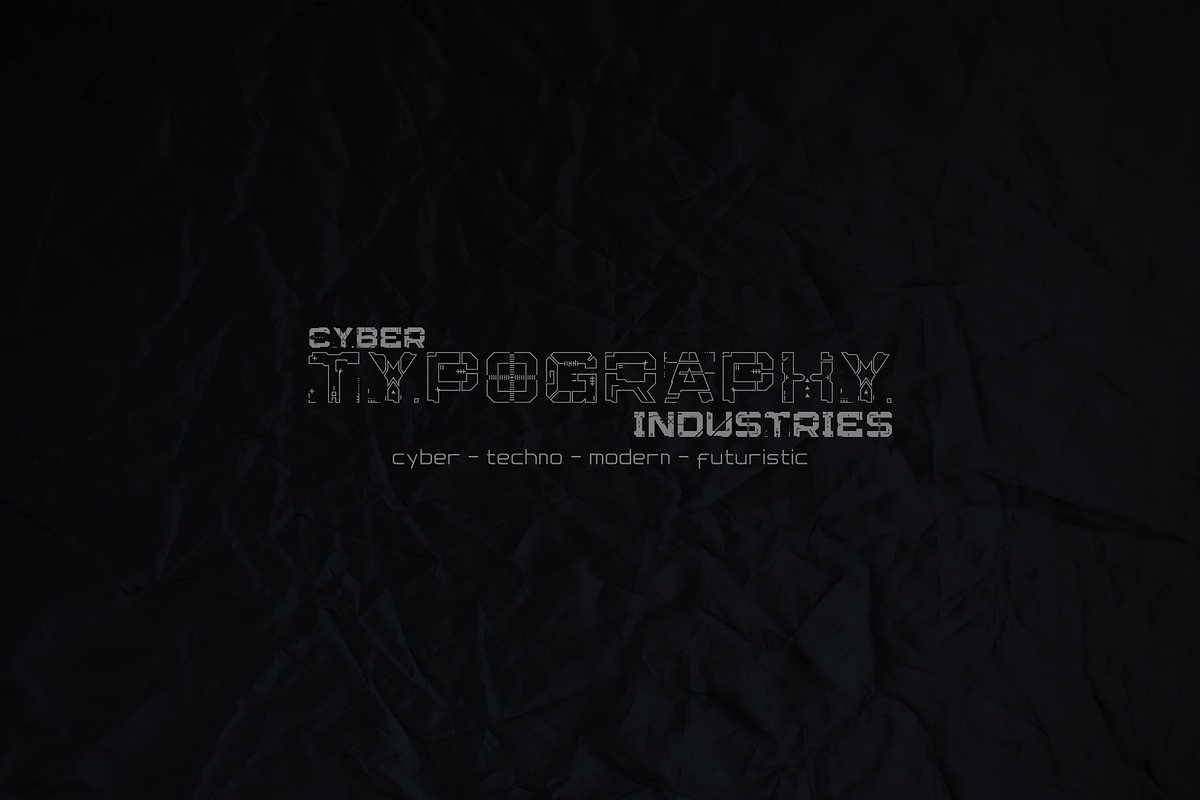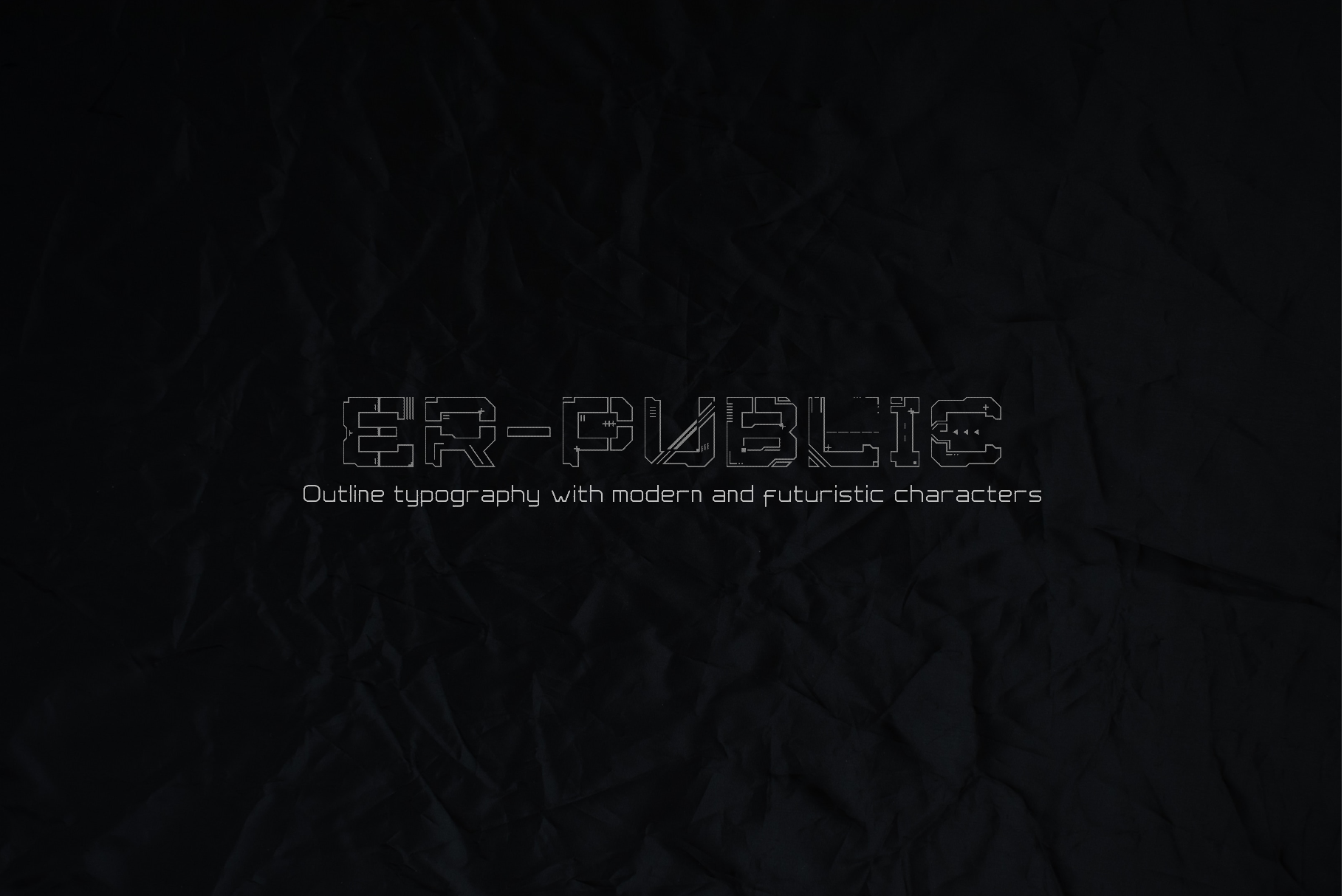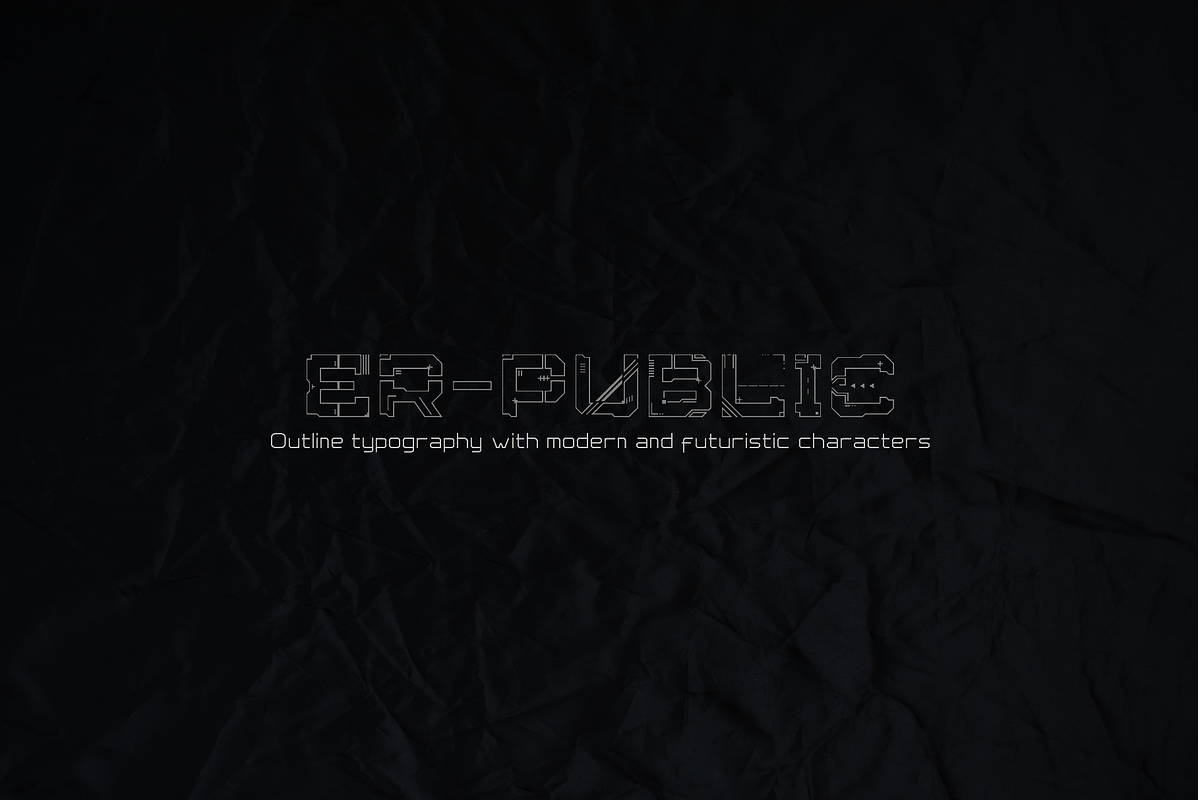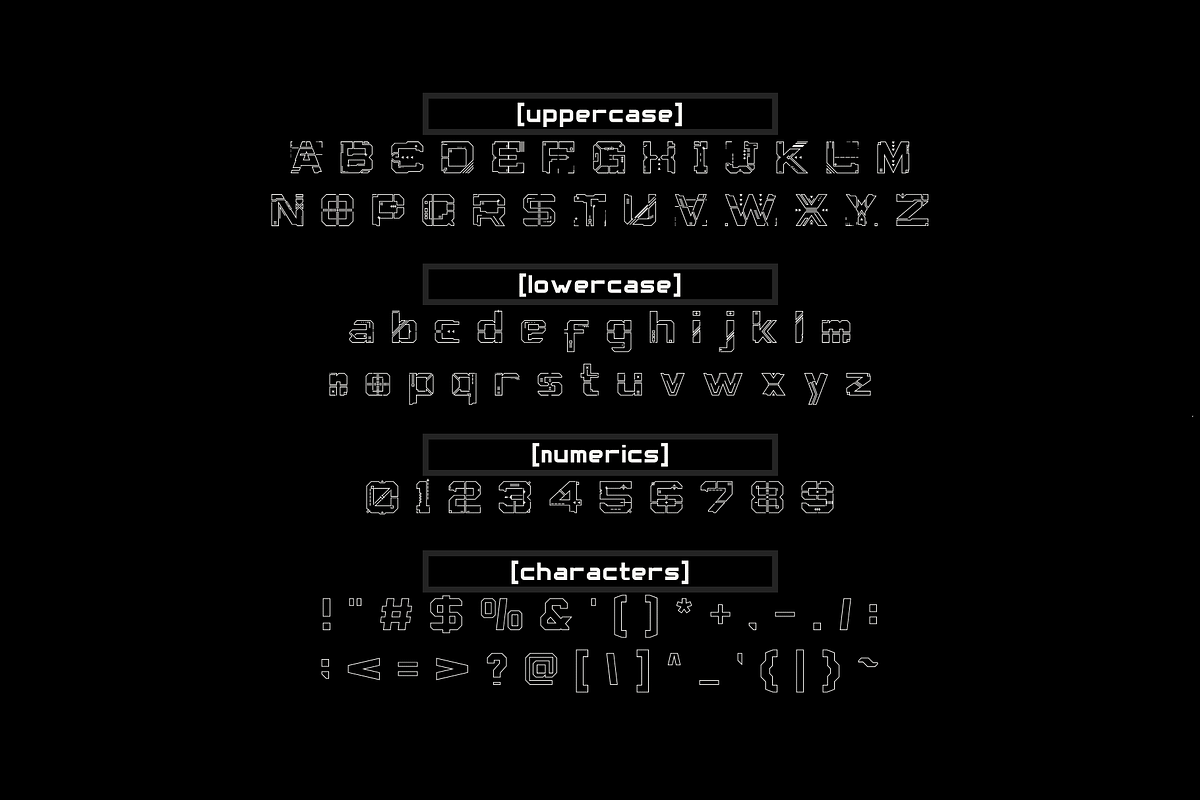
er-public font
Er-public font is not a standardized or well-defined font term. Fonts are diverse and can be categorized in various ways based on the style, appearance, and intended use. The term Cyber-Techno might refer to a font style that embodies a futuristic, technological, or cyberpunk aesthetic.
Fonts that fall into the Cyber-Techno category are often characterized by sharp, angular lines, futuristic design elements, and a digital or technological vibe. These fonts are frequently used in science fiction themes, technology-related graphics, and other contexts where a modern, cutting-edge appearance is desired.
If you are looking for a font like this, you might explore with these characters of various techno, sci-fi, or futuristic font collections. Keep in mind that the specific characteristics font can vary, and different designers may interpret the style in different ways.